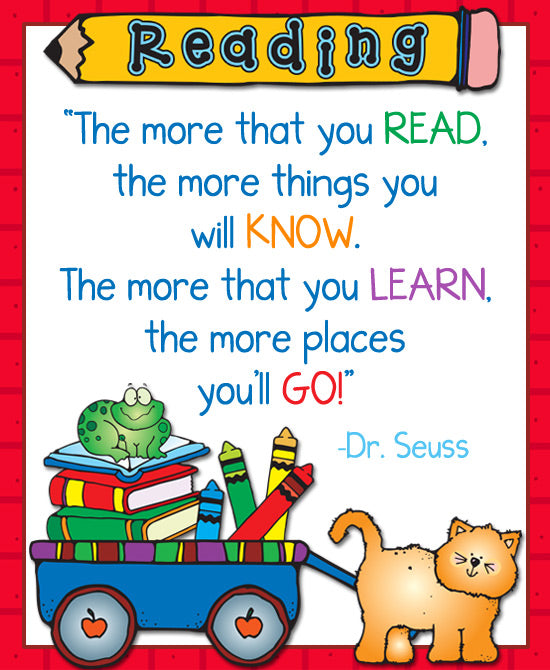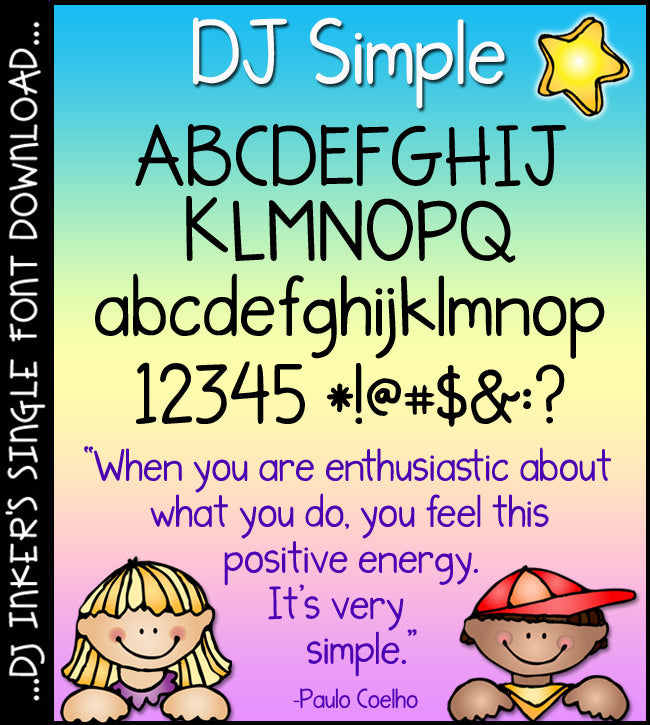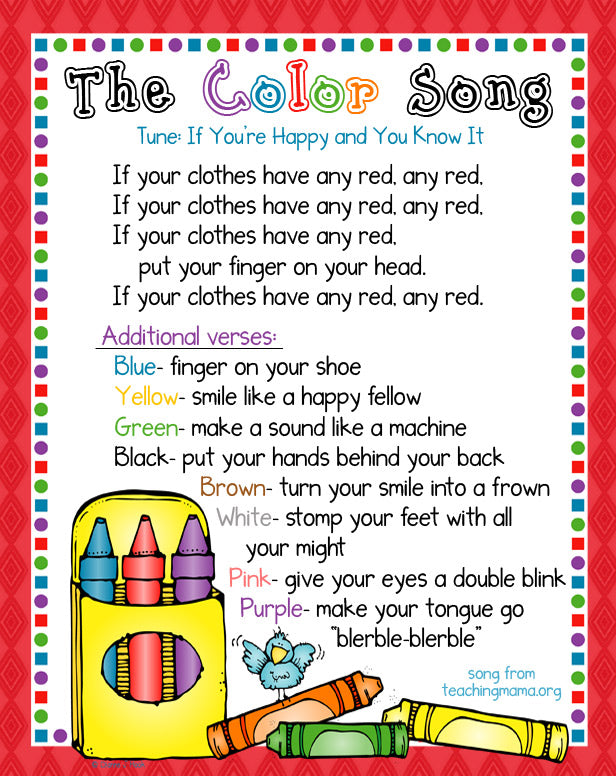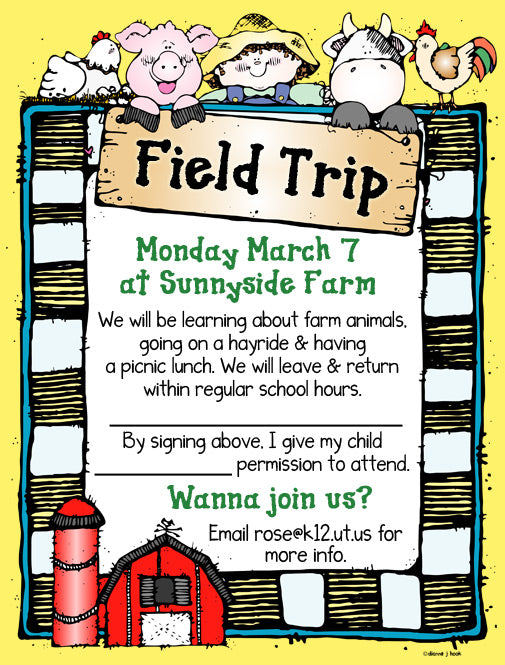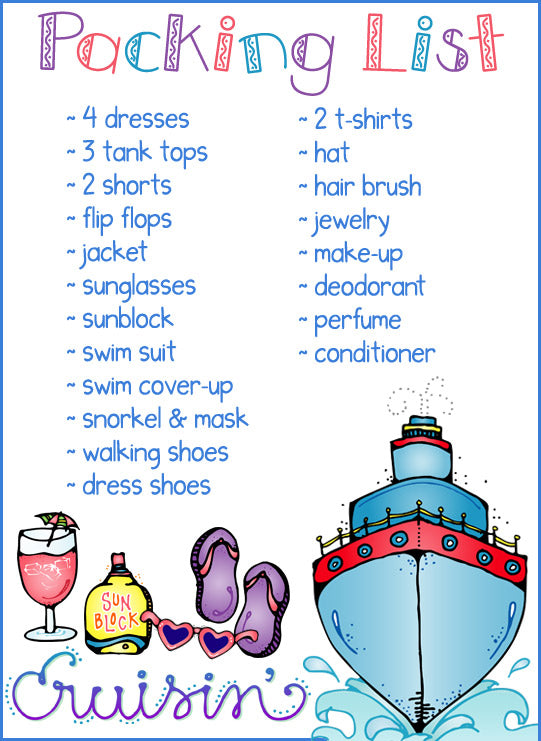
A cute and simple font to type up the basics by DJ Inkers
DJ Simple Font Download
A cute and simple font to type up the basics by DJ Inkers
DJ Simple Font Download
Sometimes the simplest things in life are the best, aren't they? Well, our sweet and DJ Simple font is just what you need to type-up the basics at school, at home or at play! Great for instructions, lists, letters, and text of any kind. This font is excellent in any size or color too.